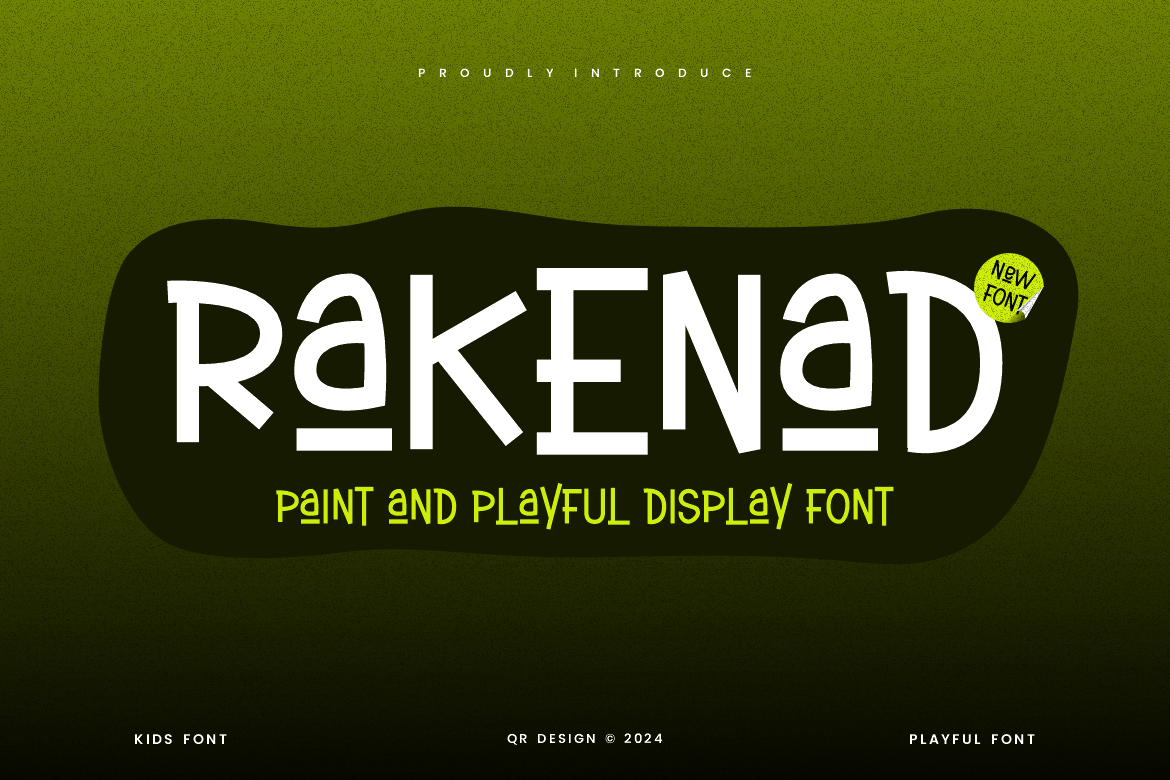
Rakenad - Paint Playful Font
Rakenad Font is a playful and authentic display font. The font is suitable for any branding project like poster, logo, sport, and many more. Outstanding in a wide range of contexts.